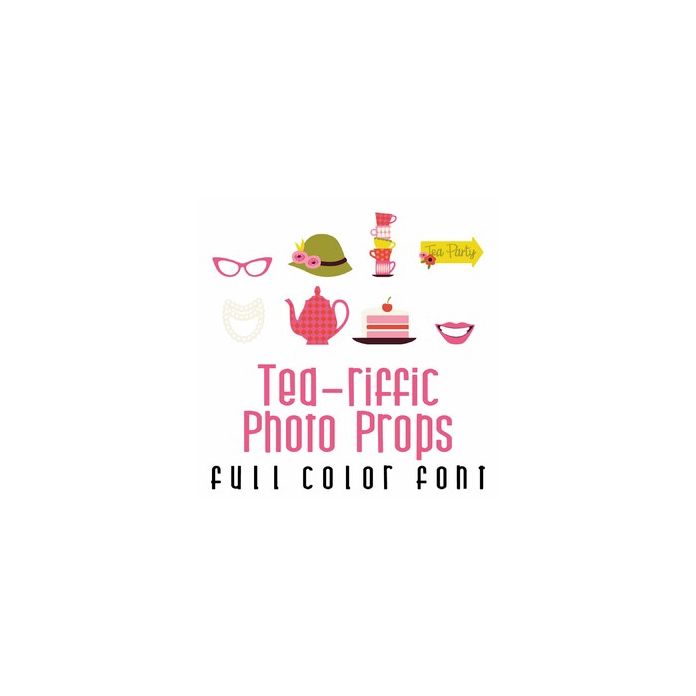
This "Tea-riffic" full color font features 26 photo props for the perfect tea party! Use this fun doodlebat to create adodrable cards, gifts, decor, planner stickers, scrap book pages and its perfect for Mother's Day!